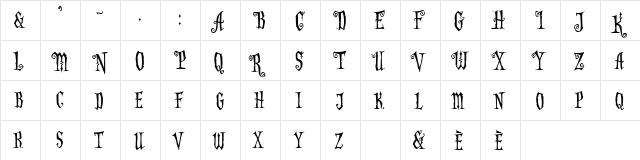
Addams Capitals
Design Context for Addams Typeface
Addams is a composed and adaptable typeface that performs quietly and consistently across a wide range of design contexts.